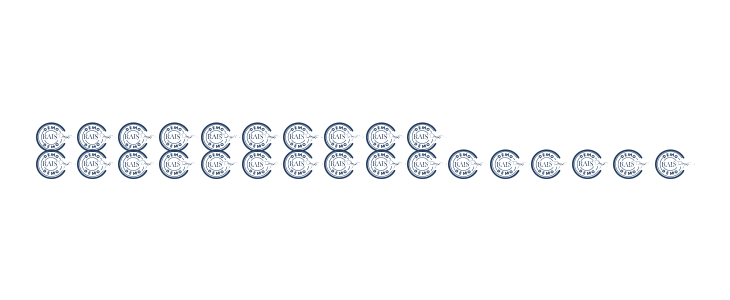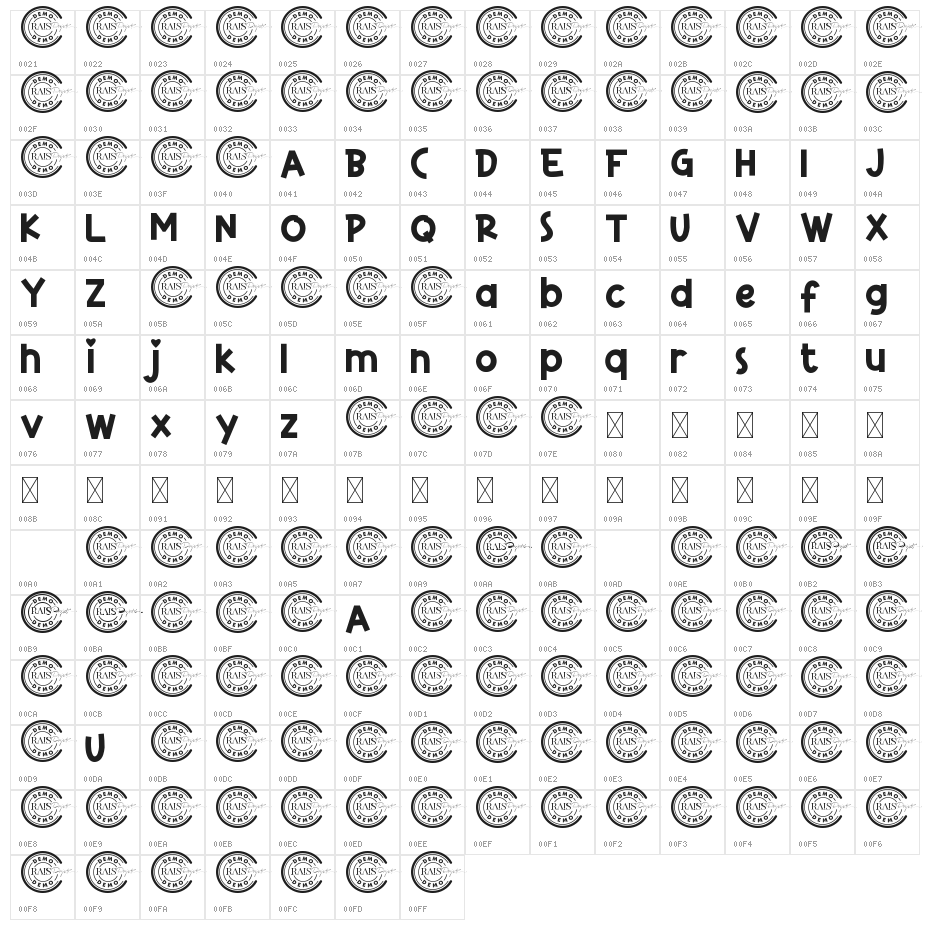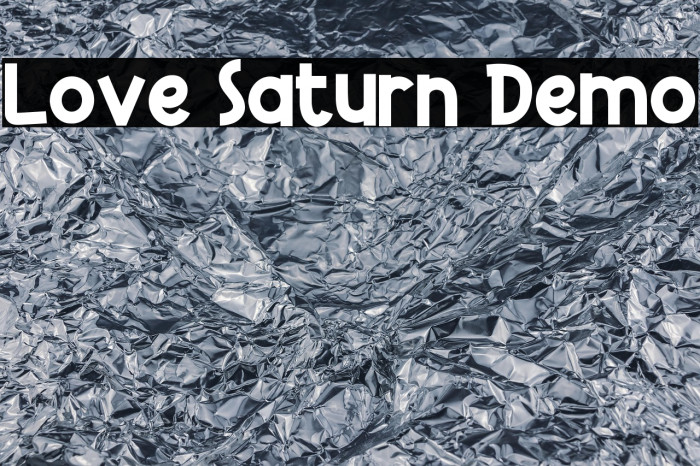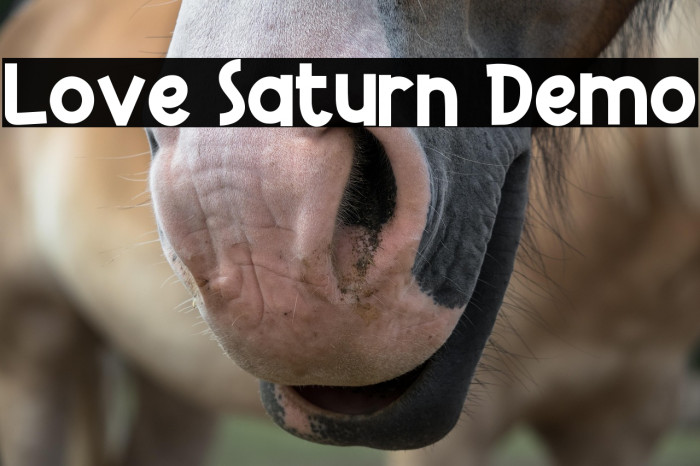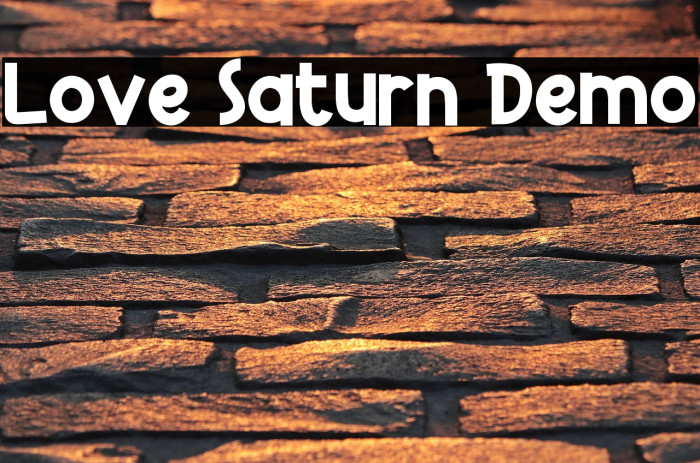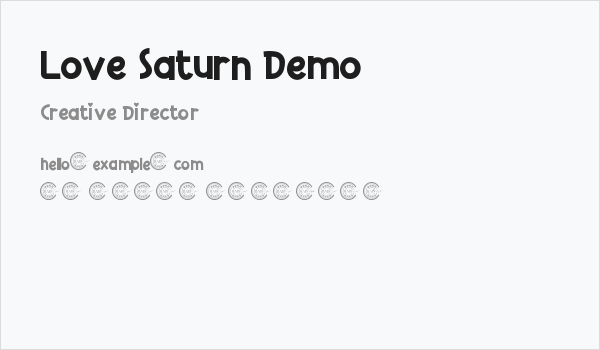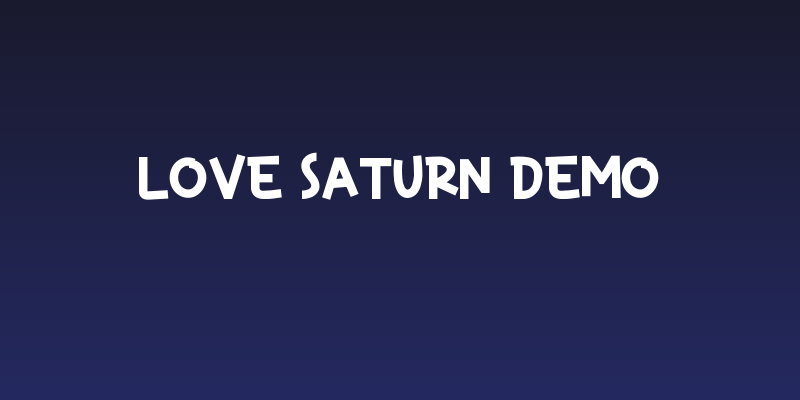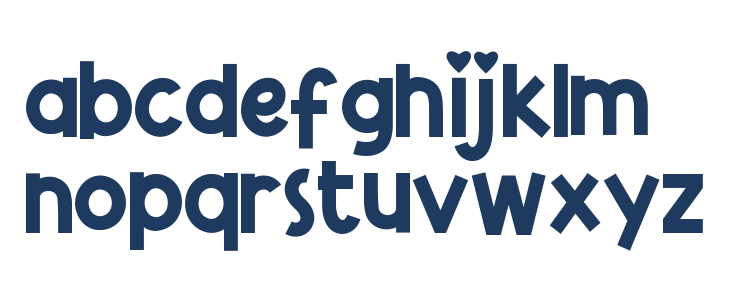
Love Saturn Demo Font
Love Saturn Demo Description
This font features a playful and bold style with a unique twist. The uppercase letters are characterized by their thick strokes and slightly curved edges, giving them a friendly and approachable appearance. The lowercase letters maintain a consistent weight, with some characters like 'g' and 'j' having distinctive loops that add to the font's charm. The special characters, including hearts above the 'i' and 'j', enhance its whimsical nature. Overall, this font exudes a sense of fun and creativity, making it ideal for projects that require a lively and engaging aesthetic.
| Overall Style | Playful and Creative |
| Proposed Projects | Perfect for children's books, playful branding, greeting cards, and creative posters. |